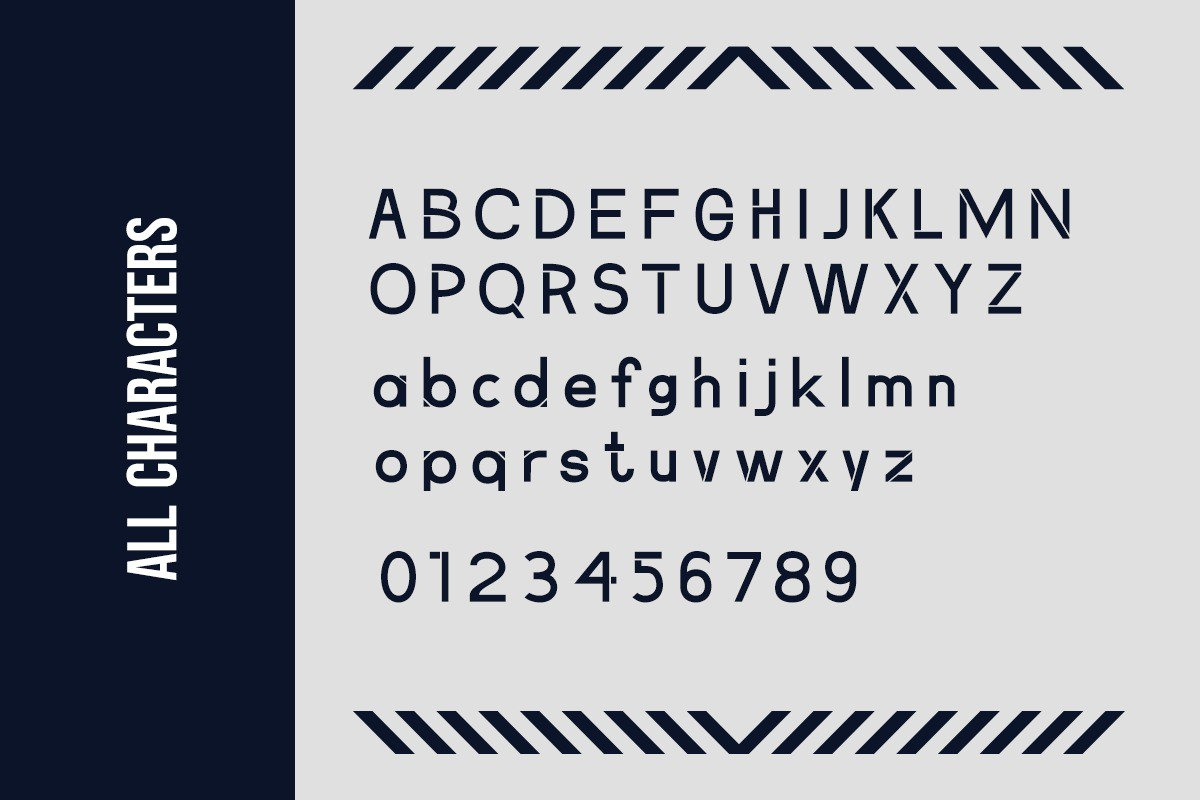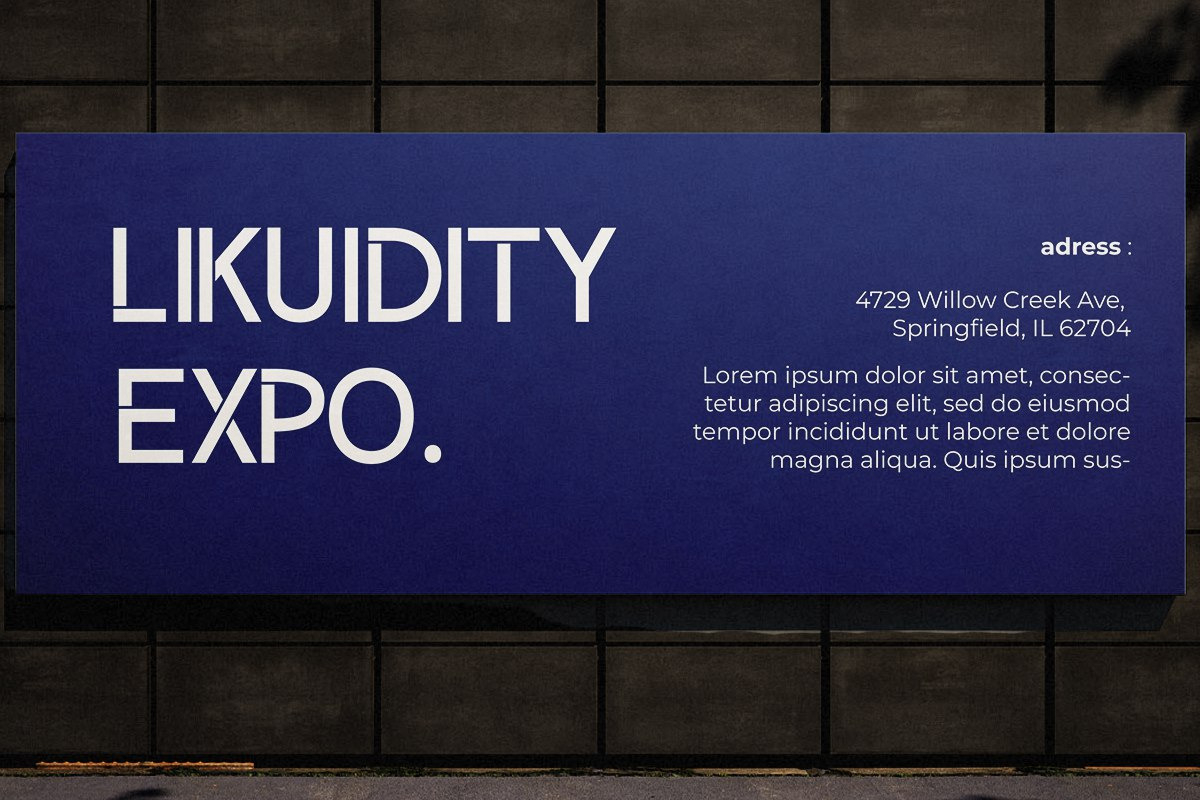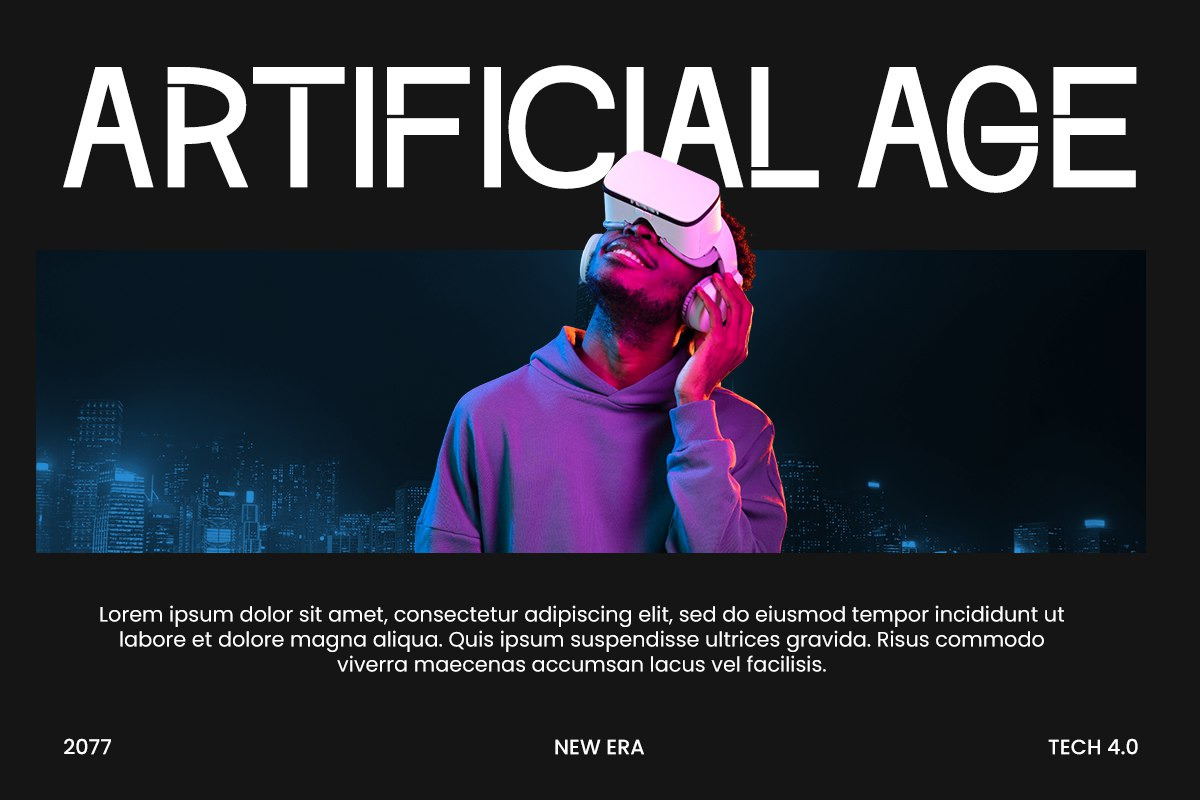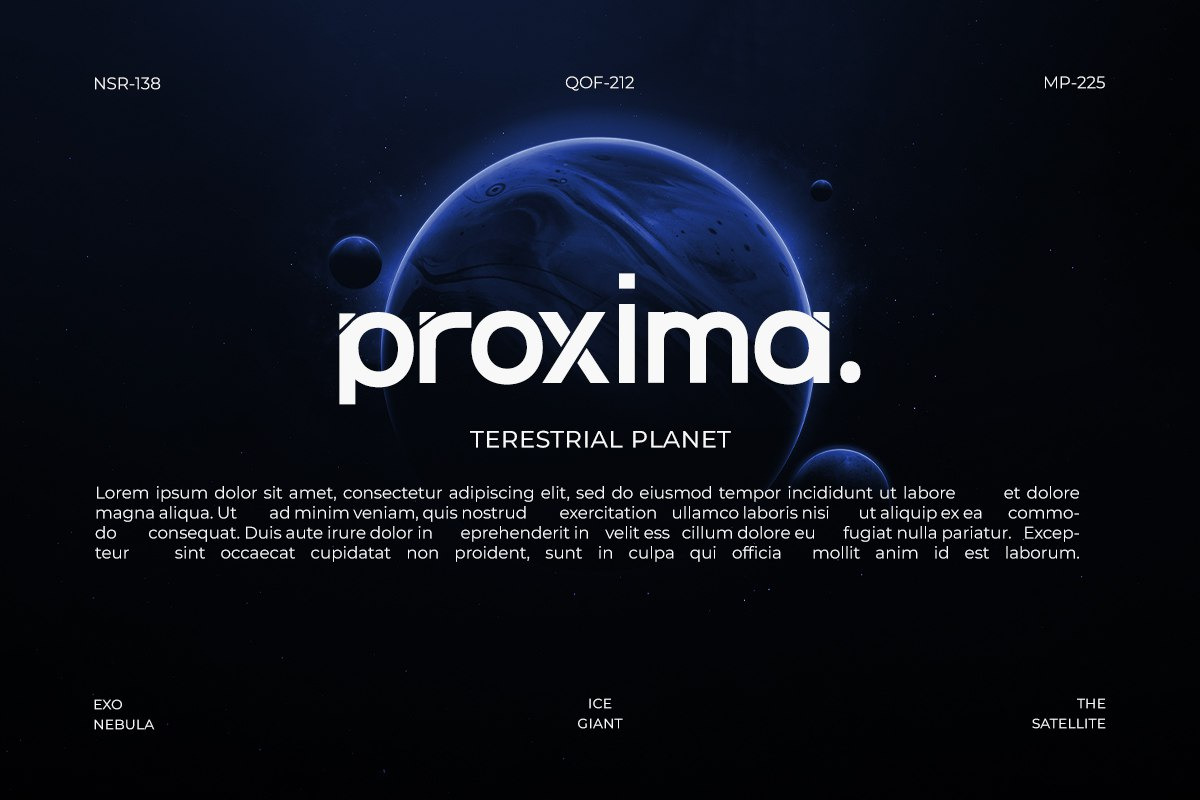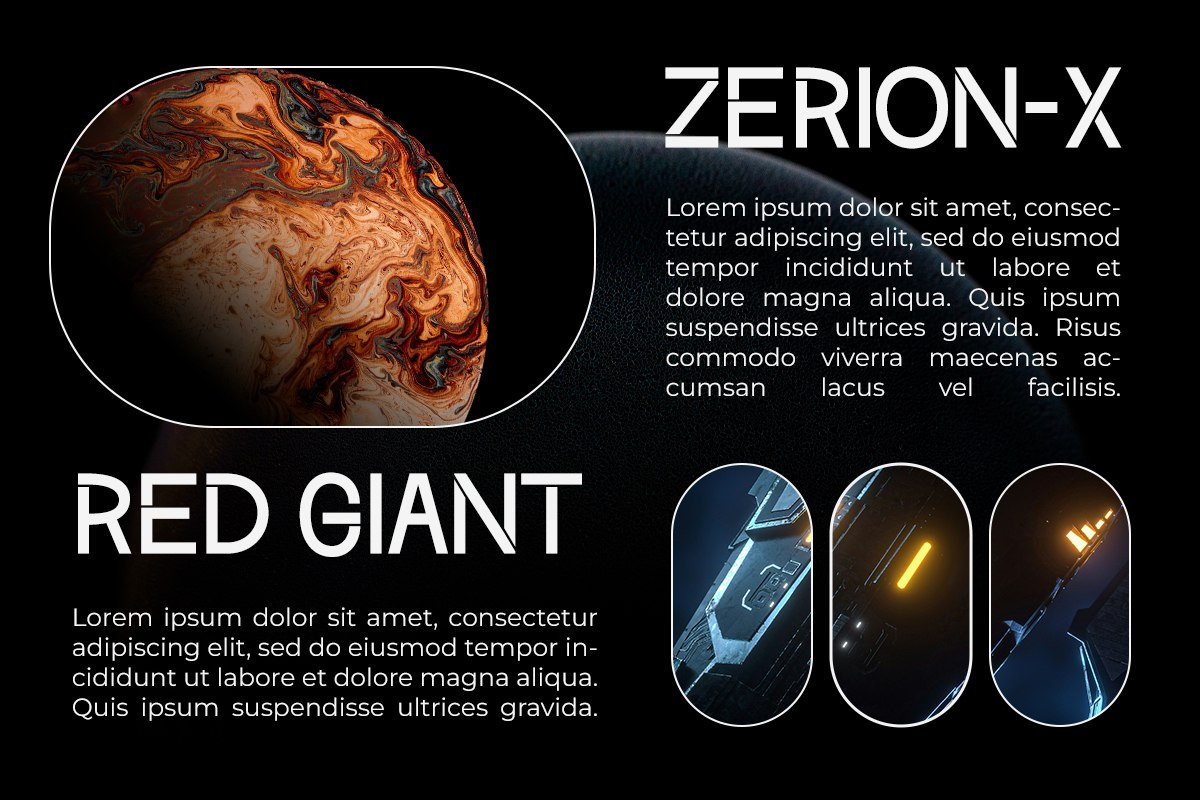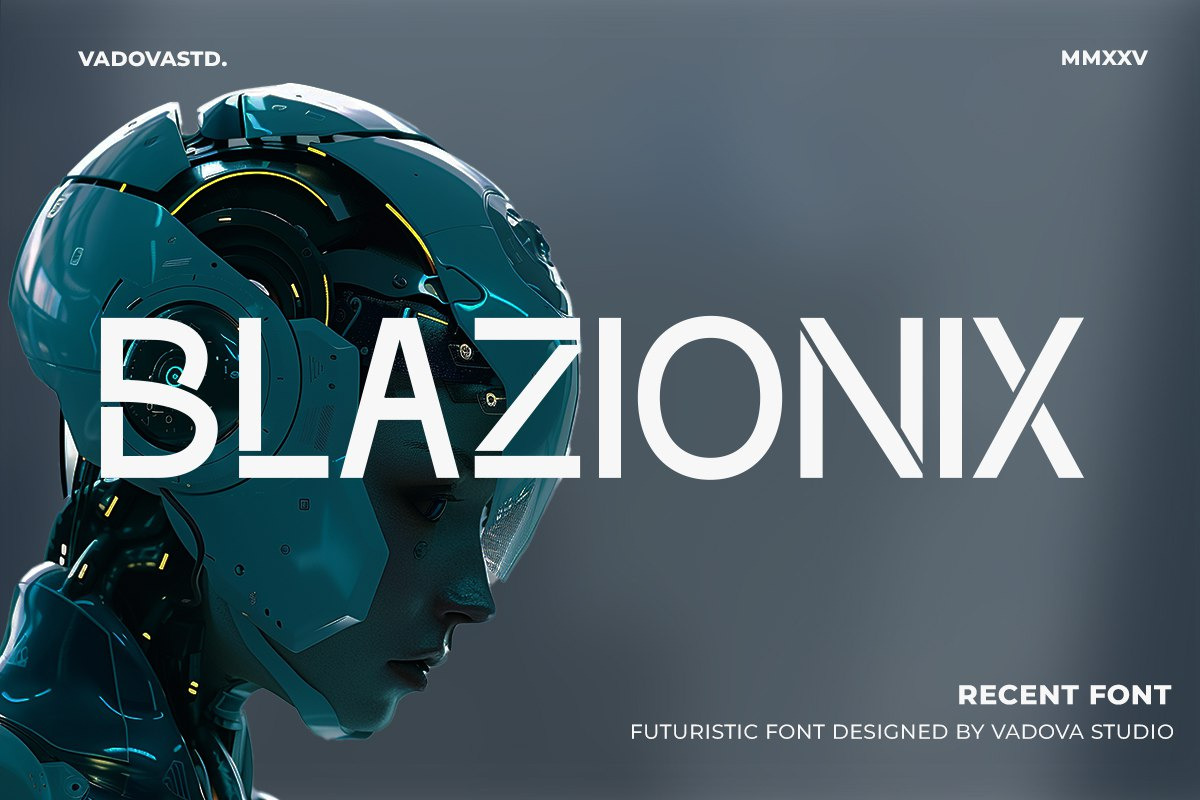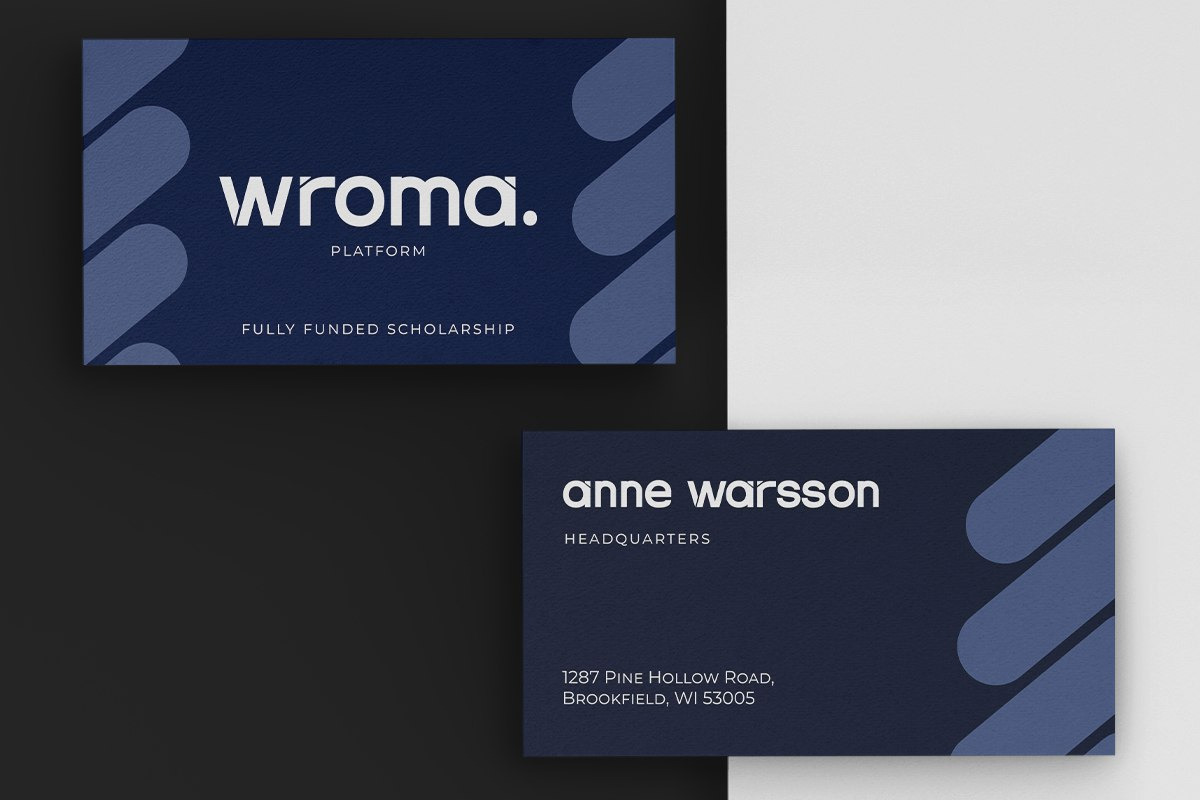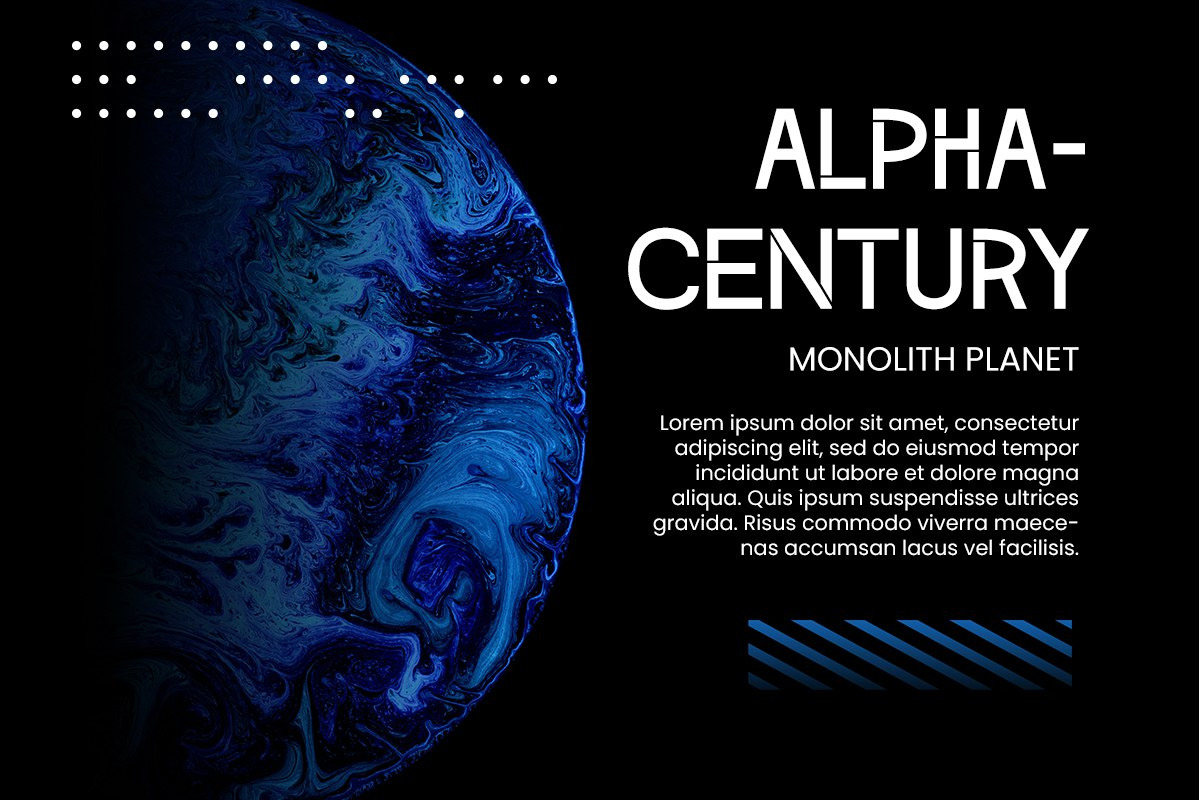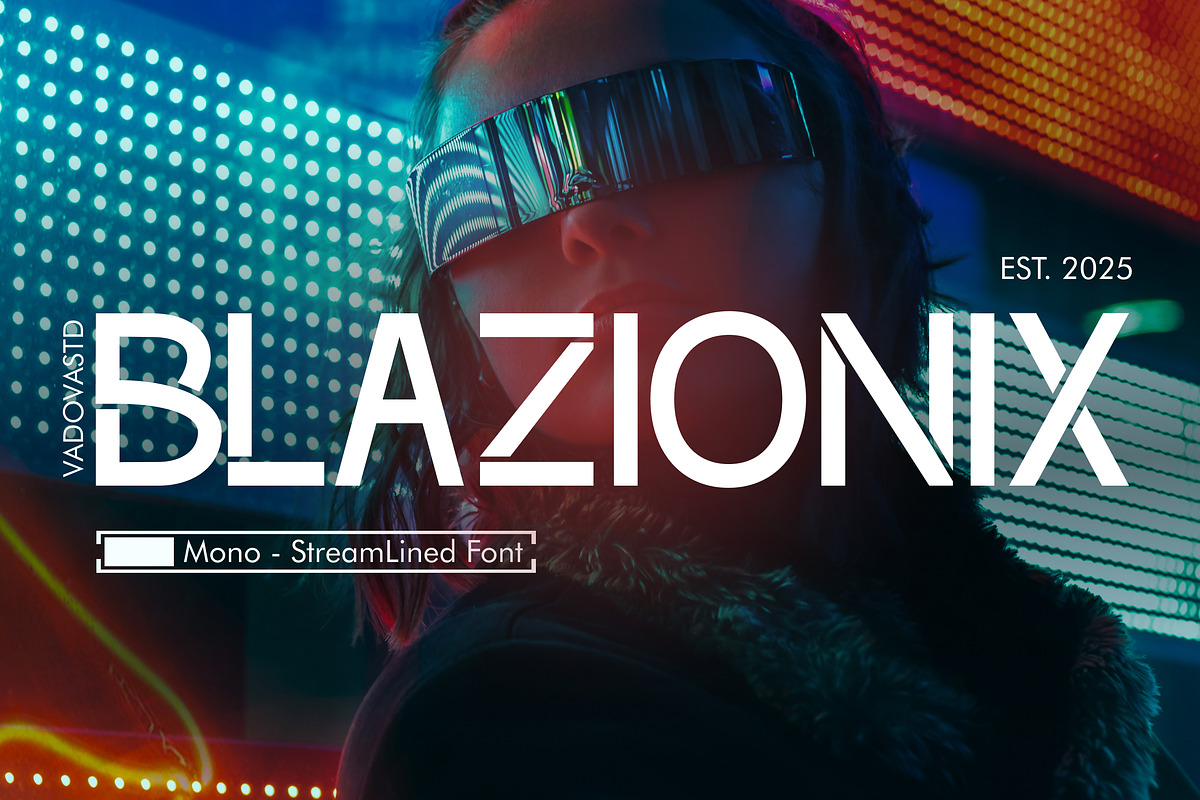
Blazionix – Futuristic Sans Serif
Blazionix is a streamlined futuristic sans typeface crafted for the digital frontier. Designed with precision and rhythm, it captures the visual essence of tech minimalism, cybernetic interfaces, and modern architecture. Its monospaced alignment and sharp, mechanical cuts make every character exude a sense of control, order, and advanced technology — ideal for those seeking a typography system that feels both intelligent and forward-driven.
The typeface blends aerodynamic geometry and refined proportion, forming a bold yet subtle futuristic presence that works across AI branding, UI dashboards, cyberpunk visuals, and digital identity design. Blazionix represents the next phase of typographic evolution — clean, commanding, and built for the future of innovation.
Streamlined futuristic sans design
Monospaced rhythm for structured visual balance
Sharp mechanical angles and minimal geometry
Includes uppercase, lowercase, numerals, and punctuation
Bonus Functional Highlights:
Perfect legibility across print and digital displays
Ideal for AI, robotics, and high-tech branding
Pairs beautifully with neon, holographic, and gradient visuals
Supports multilingual characters
Designed for both creative and corporate futuristic interfaces
Relevance and Use Cases
Relevance and Use Cases is perfect for futuristic branding, AI technology startups, gaming interfaces, cyberpunk posters, digital product UI, esports identity design, and sci-fi title sequences.
Bring futuristic precision to your designs with Blazionix — a streamlined sans typeface engineered for digital pioneers and visionary creators.